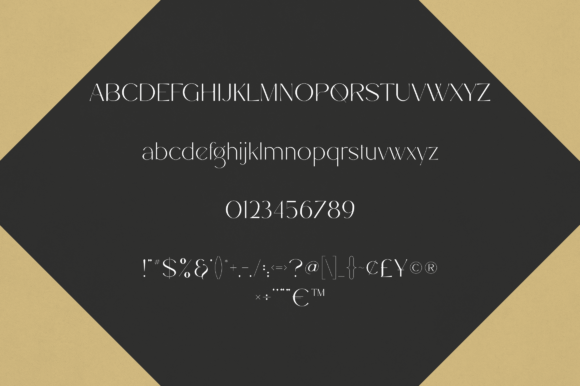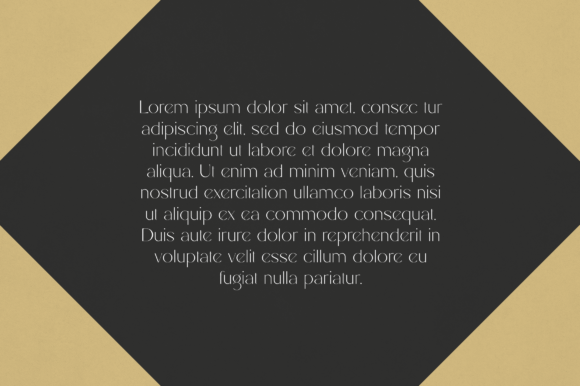
Introducing Chantria Font: Elevate Your Typography with Elegance
In the world of typography, a font can make all the difference in creating a lasting impression. If you’re a designer, craftsperson, or simply someone who appreciates beautiful text, you’re in luck. Say hello to Chantria, an elegant and versatile serif font designed to make your typography truly unique. With Chantria, you can add a touch of sophistication and charm to any project, from logos and branding to headlines, packaging, and more.
The Charm of Chantria
Chantria is more than just a font – it’s an experience. Its elegant serif design exudes refinement and poise, making it perfect for projects where you want to convey a sense of luxury, tradition, or sophistication. Whether you’re working on a branding project, designing a product label, or creating a stylish text overlay for a background image, Chantria is sure to enchant your audience.
One of the standout features of Chantria is its versatility. This font is not limited to a specific style or genre; it can be used across a wide range of applications. Here are just a few ideas to get you started:
- Branding Projects: Use Chantria to create a memorable logo or typographic mark that sets your brand apart.
- Home-Ware Designs: Add a touch of elegance to your home decor with Chantria, perfect for product packaging, labels, or instruction manuals.
- Product Packaging: Make your product stand out on store shelves with Chantria’s sophisticated and eye-catching design.
- Magazine Headers: Use Chantria to create stunning headlines and section titles that add a touch of luxury to your publication.
- Text Overlays: Add a stylish text overlay to any background image with Chantria, perfect for social media graphics, presentations, or website headers.
Why Choose Chantria?
With so many fonts available, why choose Chantria? Here are just a few reasons why designers and crafters love this elegant serif font:
- Unique and Memorable: Chantria’s distinctive design ensures that your typography will stand out from the crowd.
- Elegant and Sophisticated: Add a touch of luxury and refinement to any project with Chantria’s classic serif design.
- Versatile: Use Chantria across a wide range of applications, from branding and packaging to magazine headers and text overlays.
- Easy to Read: Despite its elegant design, Chantria remains highly legible, making it perfect for body text and headlines.
Tips for Using Chantria
To get the most out of Chantria, here are a few tips to keep in mind:
- Experiment with Sizes: Chantria looks great in a variety of sizes, from large headlines to smaller body text.
- Play with Colors: Try pairing Chantria with different colors to create a unique and eye-catching design.
- Mix and Match: Combine Chantria with other fonts to create a distinctive and memorable typographic style.
In conclusion, Chantria is an exceptional serif font that can elevate your typography to new heights. With its elegant design, versatility, and ease of use, it’s perfect for designers, craftspersons, and anyone looking to add a touch of sophistication to their projects. Whether you’re working on a branding project, product packaging, or simply want to create a stylish text overlay, Chantria is sure to enchant your audience. So why wait? Discover the charm of Chantria today and take your typography to the next level!